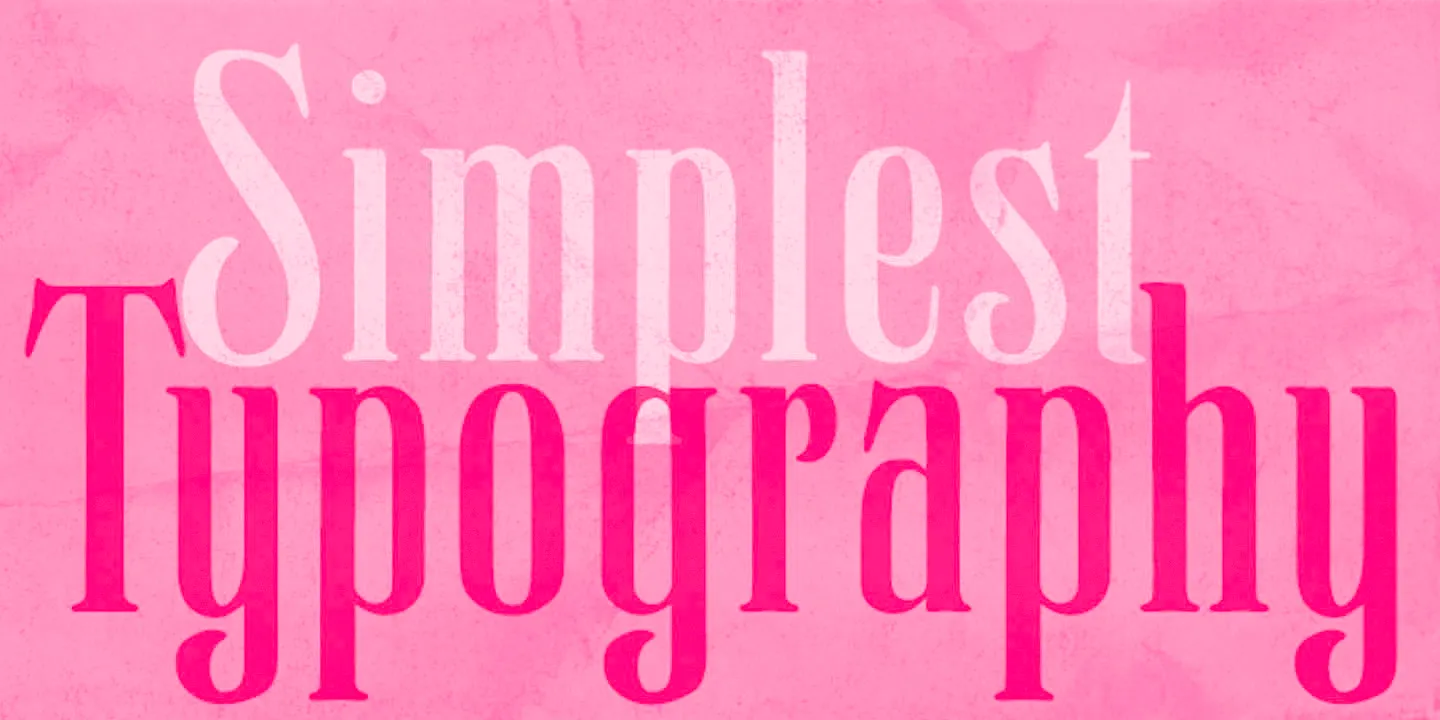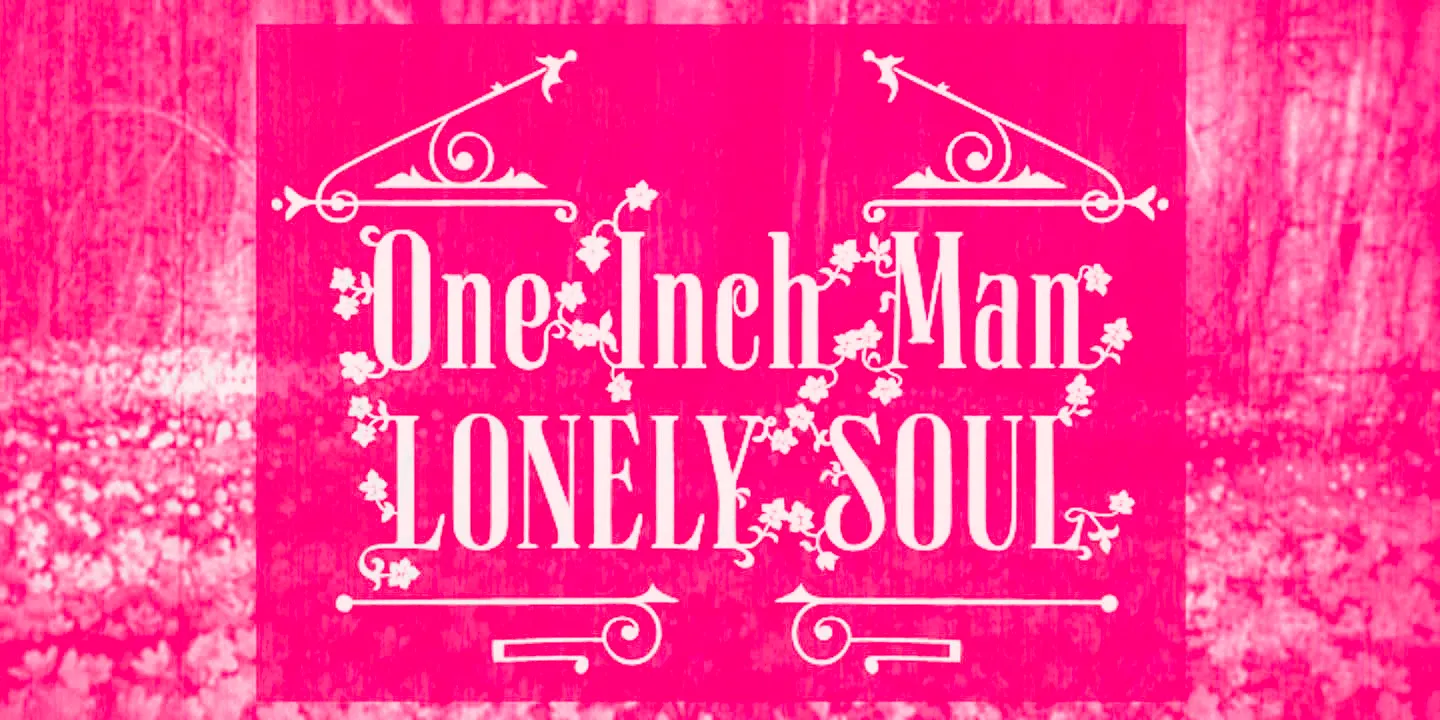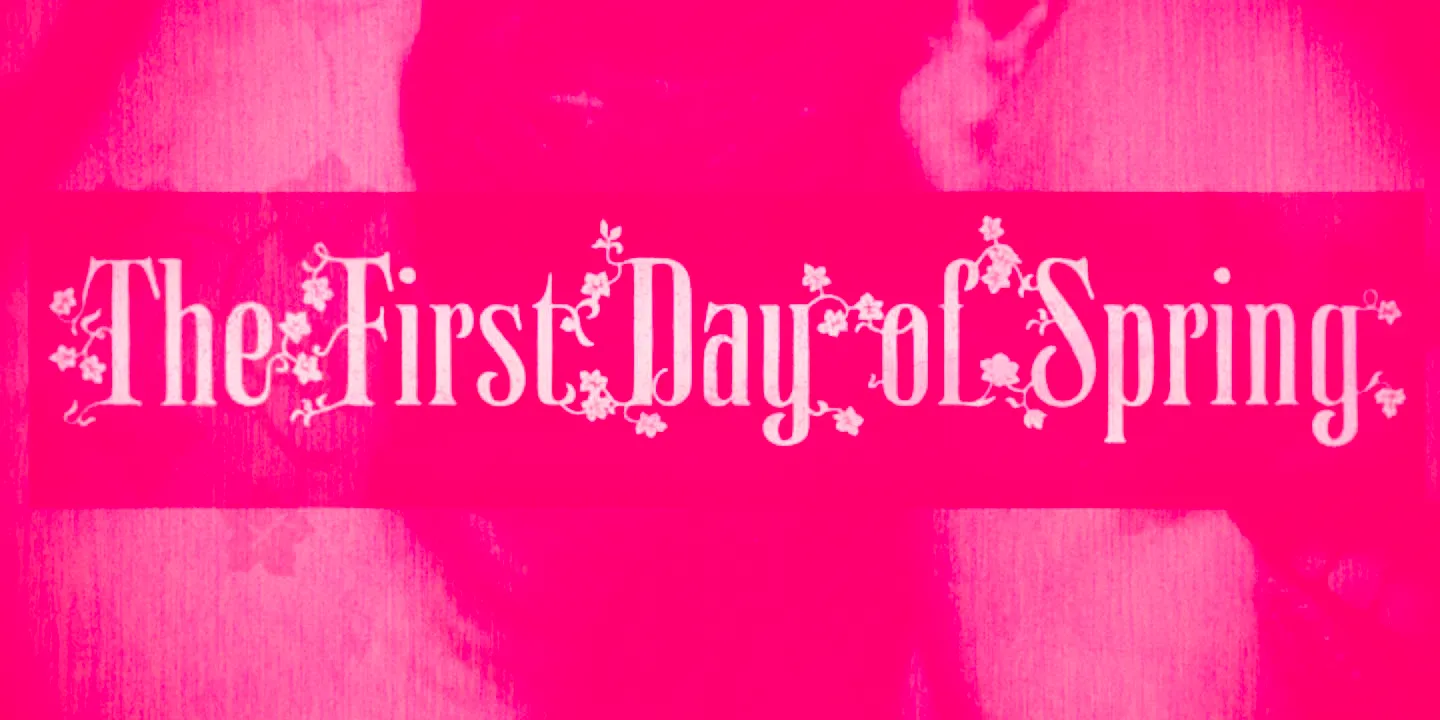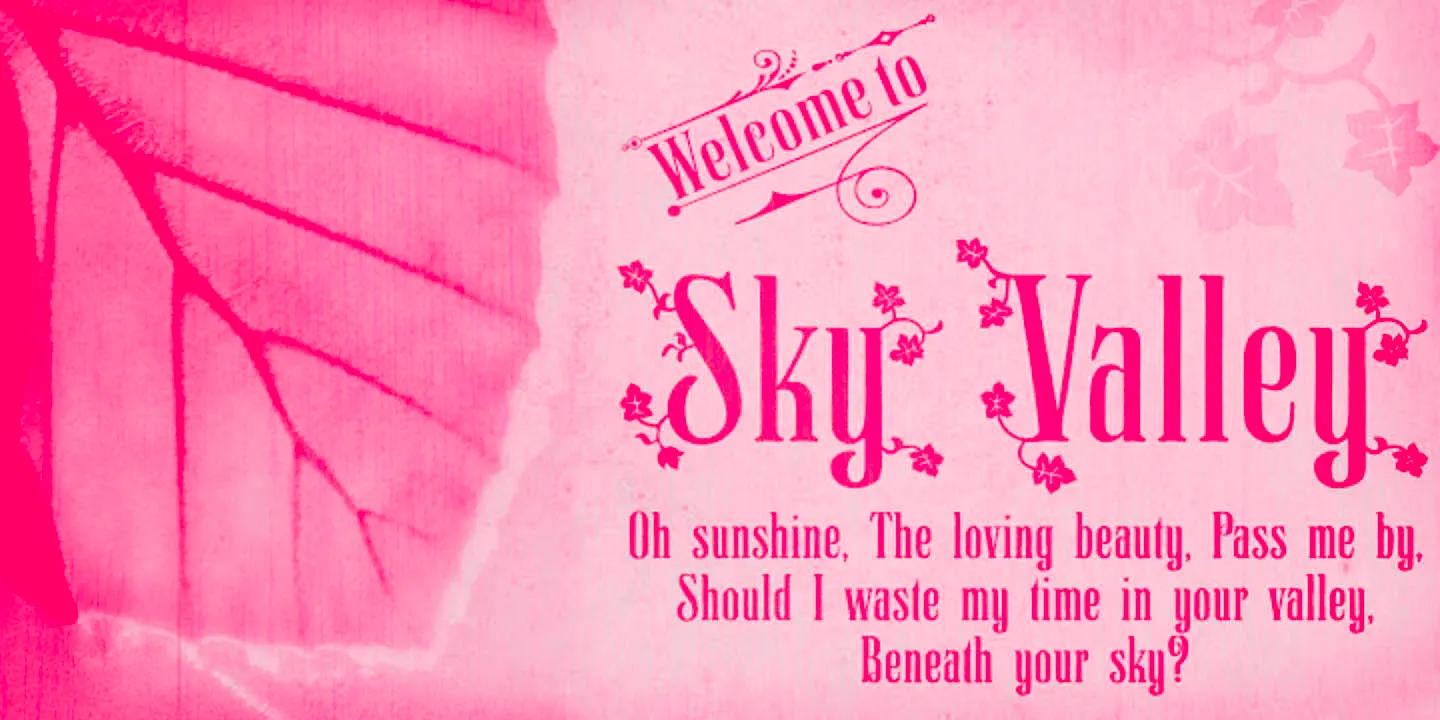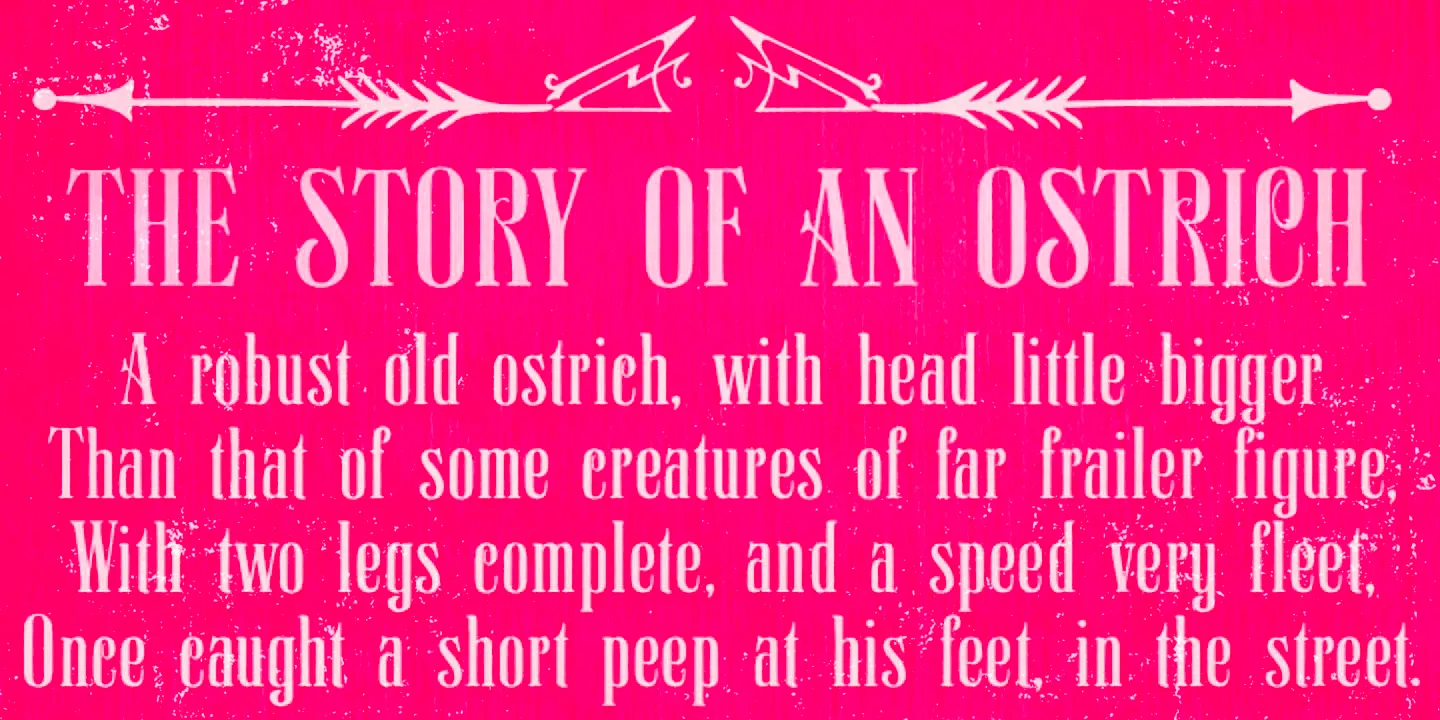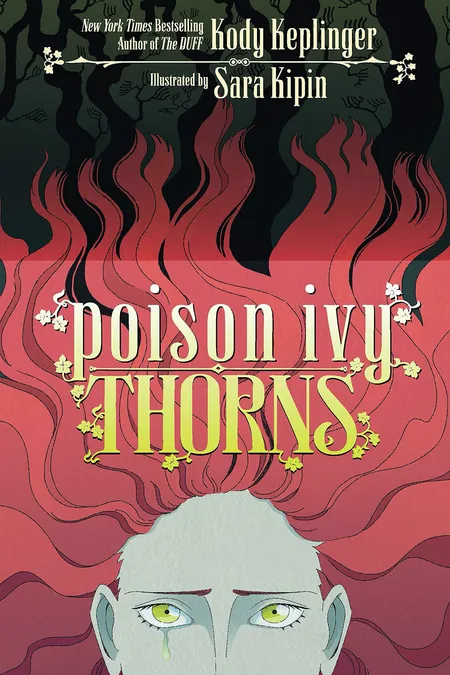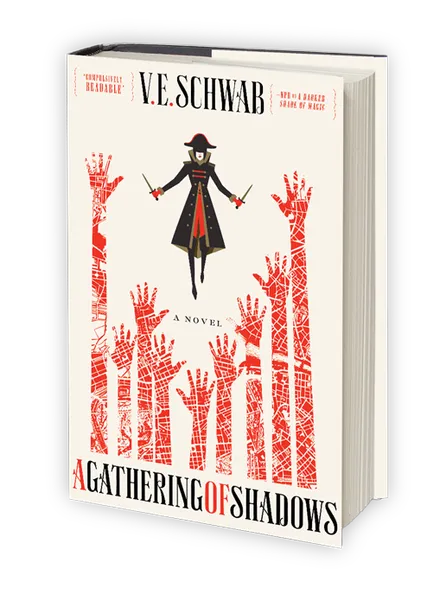
Polyspring Fonts
Polyspring
Polyspring is a steampunk-esque serif display font with an added flowery flair. Based on the Italia Condensed typeface from Keystone Foundry circa 1906, it includes stylish ornaments and flourishing alternates. This font is terrific for any designer’s toolbox and brings a sense of surprise to traditional letterforms. Refined and rebellious, the slightly offbeat rhythm and unusual curves make it uniquely suited to titles, book covers, and packaging where you want sophistication with a wink.
• Ornaments